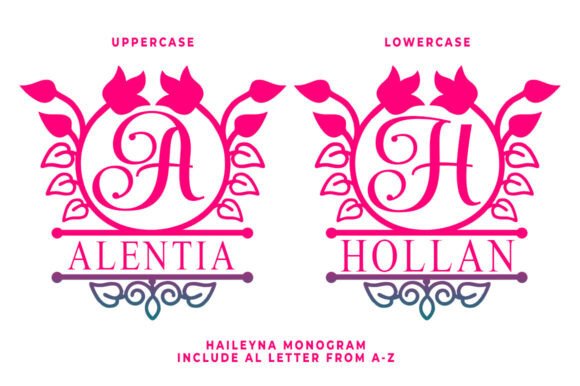
Introducing Haileyna Monogram Font: Elevate Your Designs with Elegance and Charm
In the world of typography, a well-crafted font can make all the difference in setting your designs apart from the rest. Haileyna Monogram Font is one such typographic masterpiece that embodies elegance, charm, and a touch of authenticity. This exquisite font is designed to infuse your designs with a sense of timeless romance, making it perfect for wedding invitations, stationery art, social media posts, and bespoke design projects.
Key Features of Haileyna Monogram Font
- Elegant Curves: Haileyna Monogram boasts graceful curves that add a touch of sophistication to any design.
- Intricate Ornaments: The font’s intricate ornaments bring a level of charm and character to your designs, setting them apart from the ordinary.
- Authentic Vibe: Haileyna Monogram resonates with a simply authentic vibe, making it perfect for designers looking to create unique and captivating art pieces.
Design Applications for Haileyna Monogram Font
Haileyna Monogram Font is a versatile typographic solution that can be used in a variety of design applications. Here are some of the ways you can leverage this beautiful font:
- Wedding Invitations: Create stunning wedding invitations that exude timeless romance and elegance.
- Stationery Art: Add an alluring appeal to your stationery art with Haileyna Monogram’s charming curves and ornaments.
- Social Media Posts: Captivate your social media audience with elusively captivating posts that showcase your creativity.
- Greeting Cards: Design heartwarming greeting cards that convey your message with style and elegance.
- Bespoke Design Projects: Take your bespoke design projects to new heights with Haileyna Monogram’s unique and captivating aesthetic.
Typography Tips for Using Haileyna Monogram Font
To get the most out of Haileyna Monogram Font, here are some typography tips to keep in mind:
- Pair with Neutrals: Pair Haileyna Monogram with neutral colors to let the font’s elegance shine.
- Experiment with Sizes: Experiment with different font sizes to create visual hierarchy and add depth to your designs.
- Play with Ornaments: Take advantage of Haileyna Monogram’s intricate ornaments to add a touch of whimsy to your designs.
Finding Inspiration with Haileyna Monogram Font
Haileyna Monogram Font is more than just a typographic solution – it’s a design inspiration. Here are some ways to find inspiration with this beautiful font:
- Nature: Draw inspiration from nature’s elegance and curves to create stunning designs.
- Art and Culture: Explore art and culture to find unique and captivating design ideas.
- Emotions: Design with emotions in mind, using Haileyna Monogram’s charm and character to convey your message.
Haileyna Monogram Font is a typographic masterpiece that can elevate your designs to new heights. With its elegant curves, intricate ornaments, and authentic vibe, this font is perfect for designers looking to create unique and captivating art pieces. Whether you’re designing wedding invitations, stationery art, social media posts, or bespoke design projects, Haileyna Monogram Font is the perfect choice. So why wait? Download Haileyna Monogram Font today and experience the power of elegant typography.